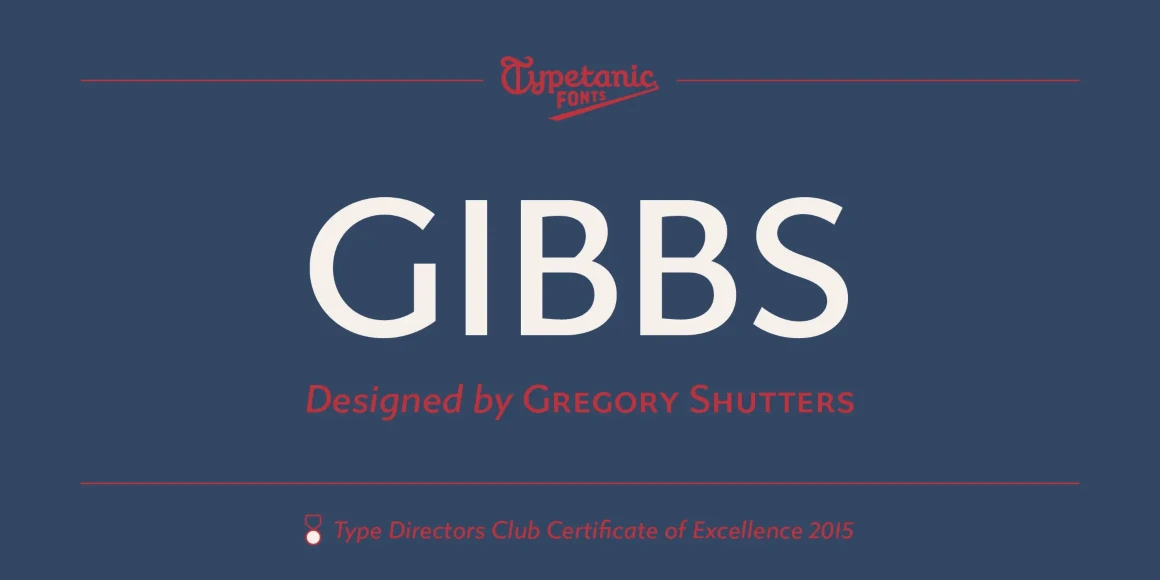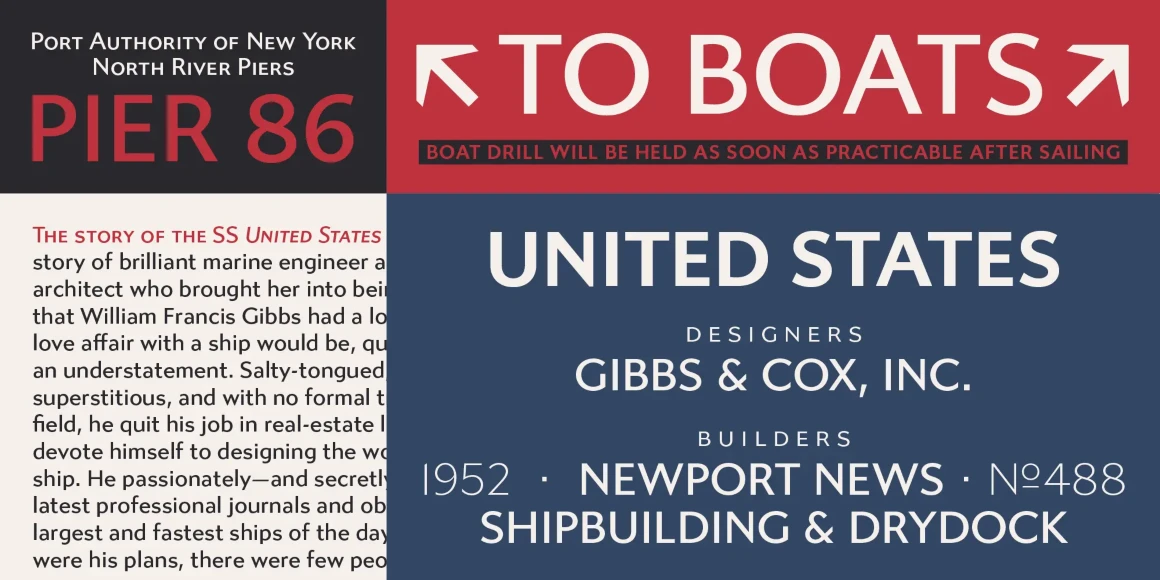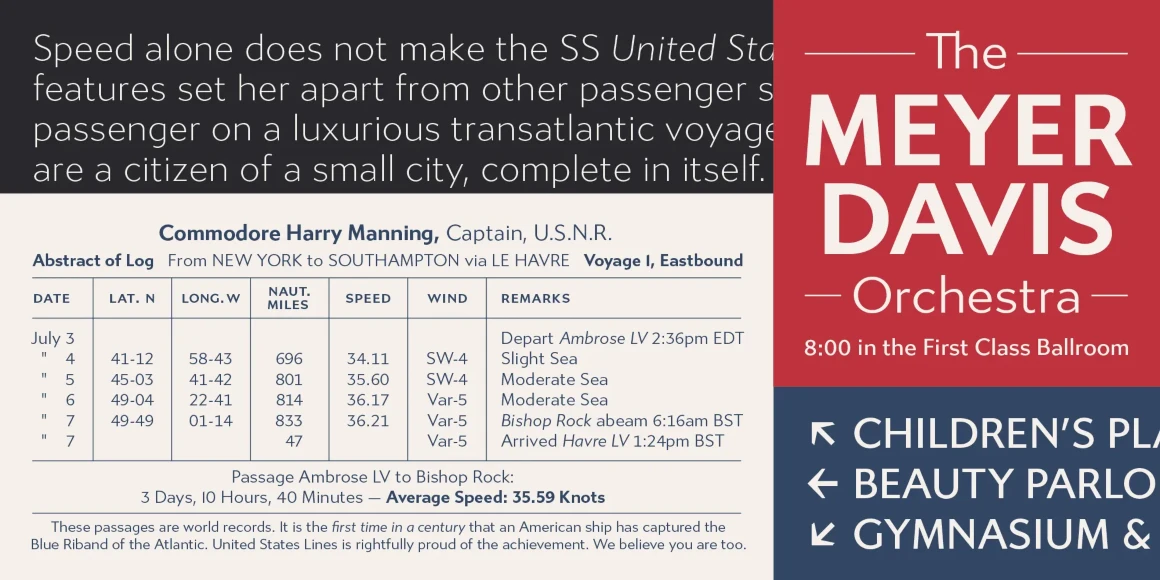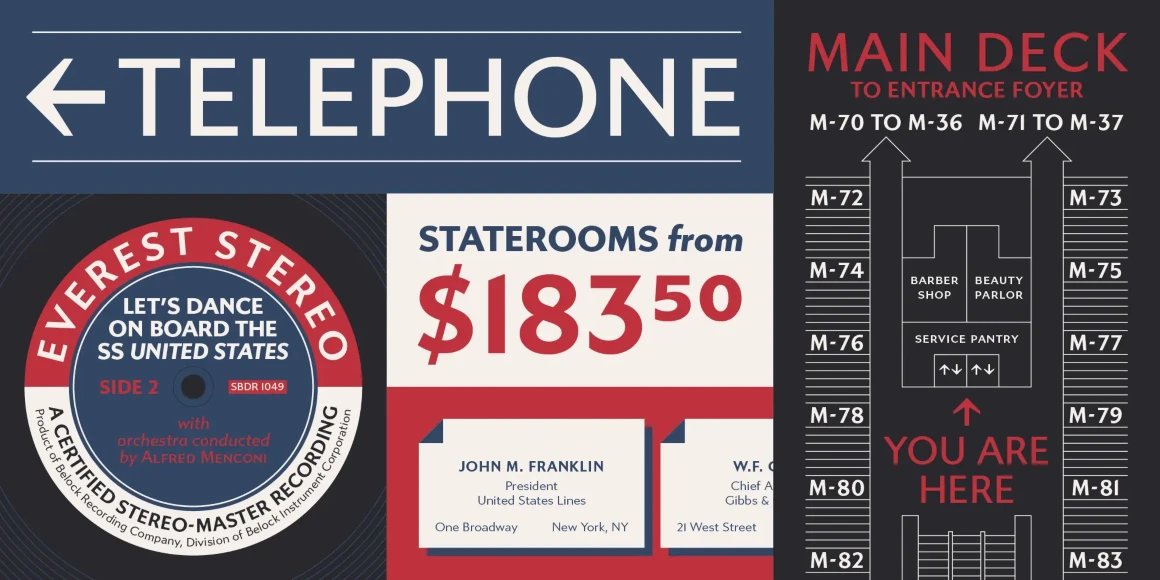
Gibbs
By Greg Shutters
The Gibbs typeface was developed for the non-profit SS United States Conservancy, owner and steward of the historic SS United States. This former transatlantic ocean liner has been virtually abandoned since 1969. The group wishes to restore the ship as a vibrant waterfront development and museum for future generations to enjoy for decades to come.
The distinctive caps of Gibbs (named for the ship’s designer, William Francis Gibbs) were based on the mid-century cast aluminum signs found on board the ship in its heyday. The result is a tough, sophisticated, and transatlantic sans with a little bit of quirk, in between industrial American vernacular lettering and the English humanist styles of Gill or Johnston.
The typeface was intended for the Conservancy to use in marketing materials and other branded collateral, with the potential to also be used for restored architectural signage on the ship in the future. Gibbs was awarded the Type Directors Club Certificate for Typographic Excellence in 2015.